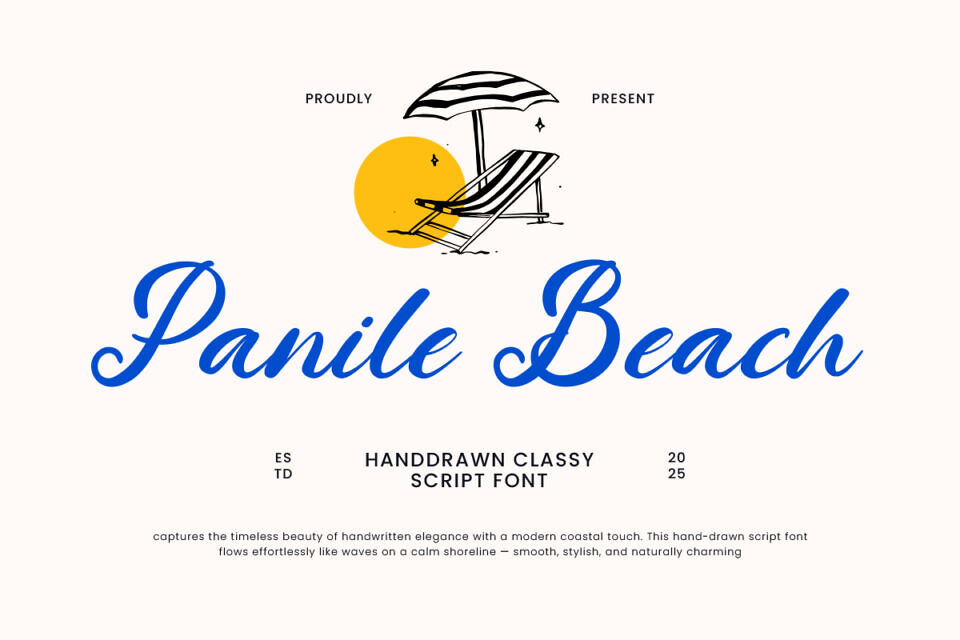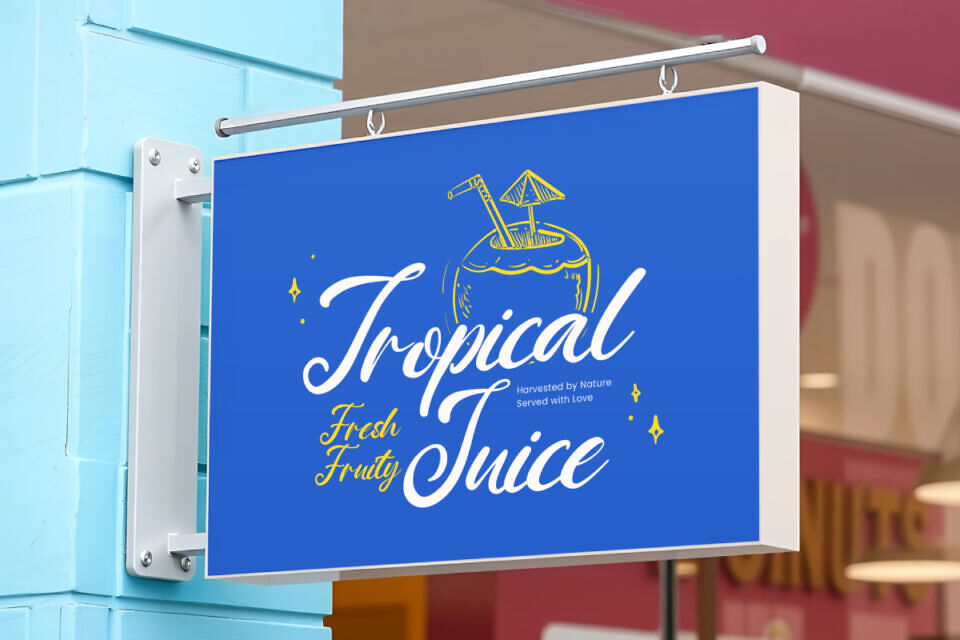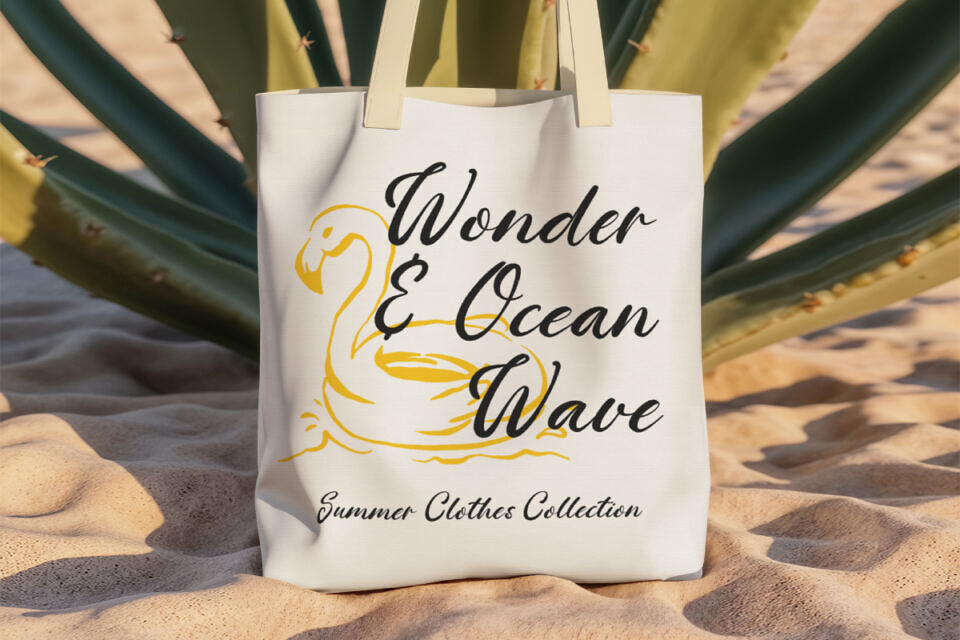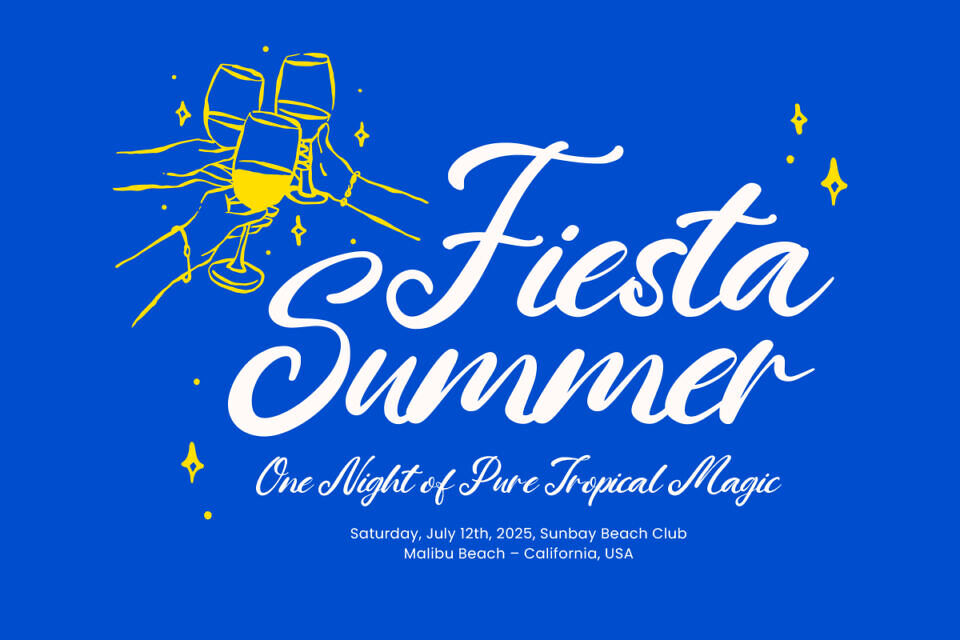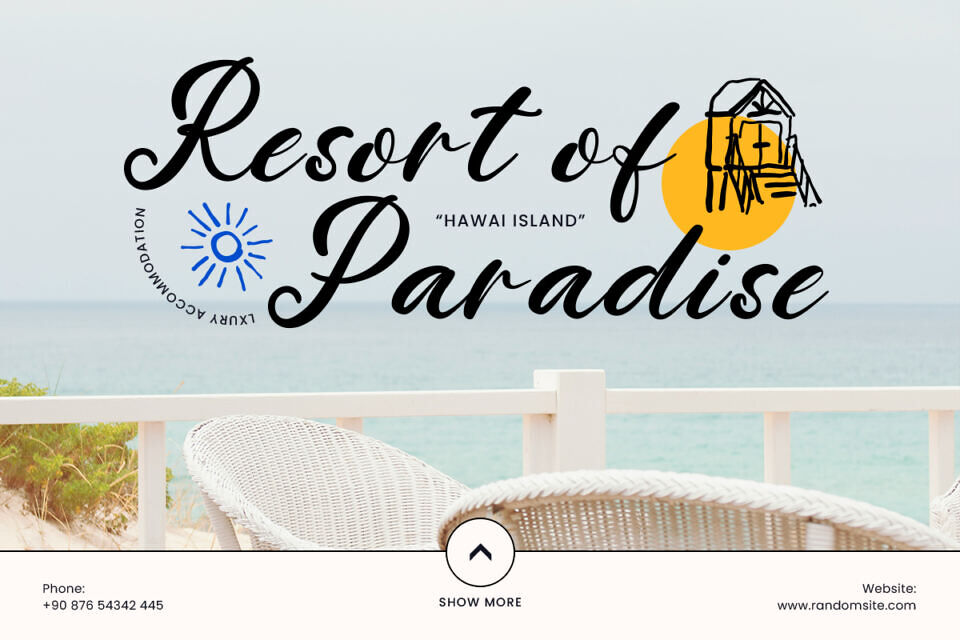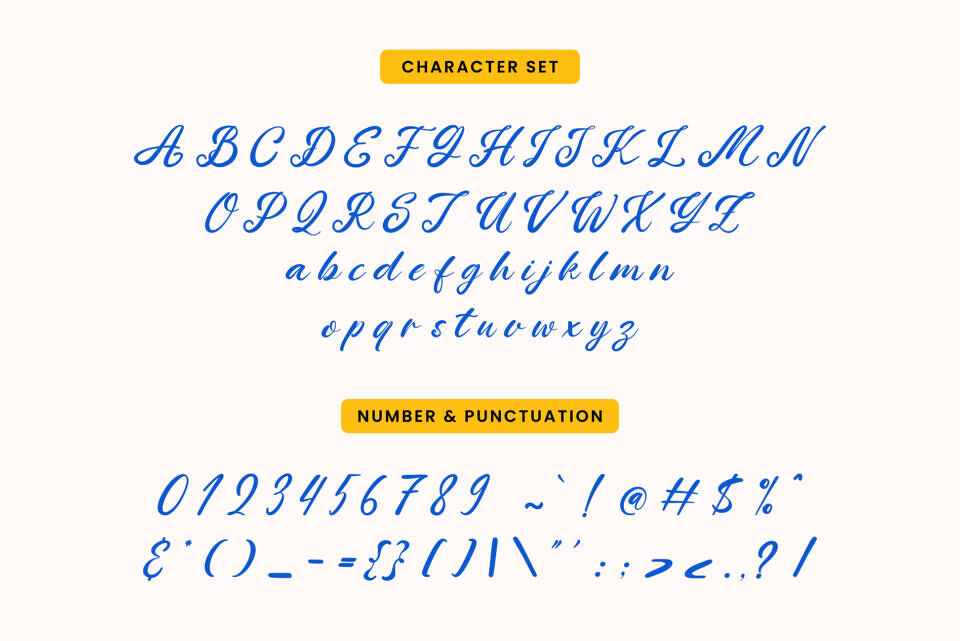
Panile Beach Font
Panile Beach is a retro summer script font inspired by the timeless charm of coastal design and handwritten signage from tropical resorts. Panile Beach captures the nostalgic beauty of 60’s and ’80s beach vibes, perfect for bringing warmth and personality to your creative projects.
This typeface is ideal for branding, logo design, packaging, posters, and social media visuals that need a playful yet classy touch. Whether you’re crafting a surf shop logo, travel blog title, or summer invitation, Panile Beach will make your design stand out beautifully.